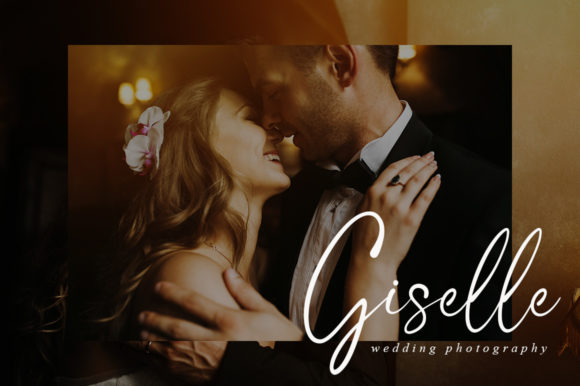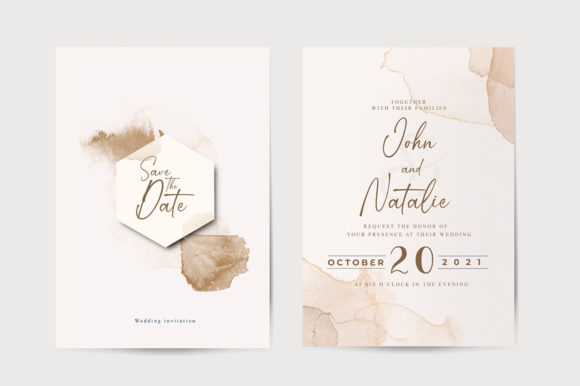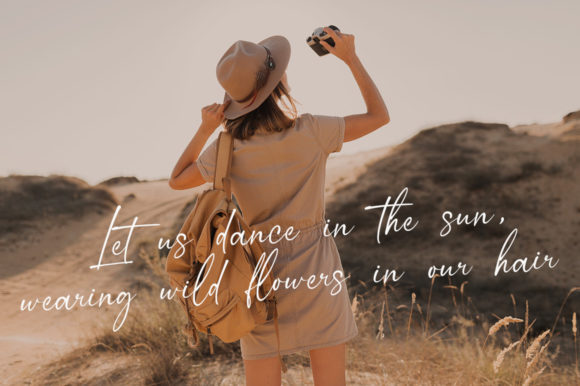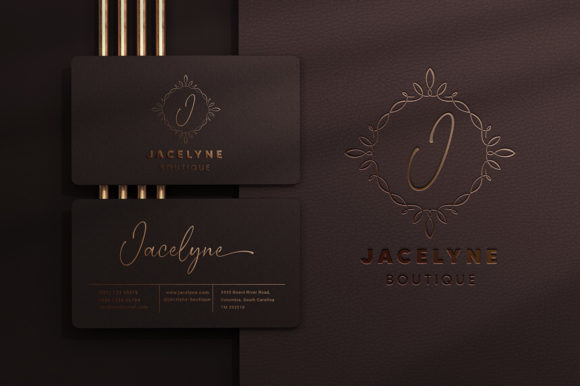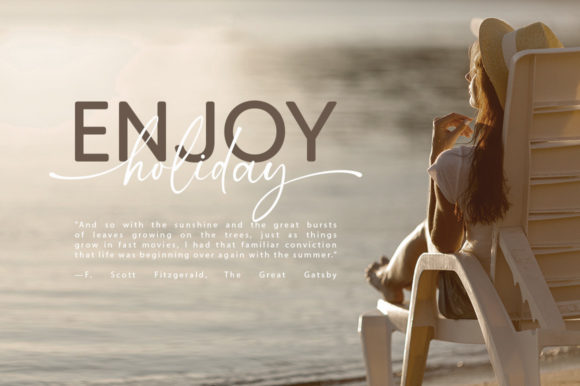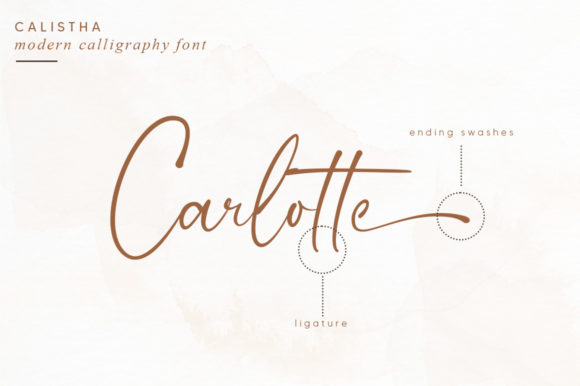
Discover the Elegance of Calistha Font: A Designer's Dream Come True
In the world of typography, fonts play a crucial role in bringing creativity and vision to life. For designers, crafters, and anyone looking to add a touch of elegance to their projects, the Calistha Font is a gem worth exploring. This stunning script font is not only beautiful but also highly versatile, making it an excellent choice for a wide range of design needs.
What Makes Calistha Font Stand Out?
Calistha Font is a thin lettered, lovely, and fashionable script font that has been turning heads in the design community. Its unique charm lies in its delicate and elegant strokes, which can instantly elevate any design project. Whether you're working on a logo, branding materials, invitations, or any other creative endeavor, Calistha Font brings a level of sophistication and style that's hard to match.
The Power of PUA Encoding
One of the standout features of Calistha Font is its PUA (Private Use Area) encoding. This means that the font is designed to allow easy access to all of its glyphs and swashes. For designers, this is a game-changer. PUA encoding ensures that you can effortlessly incorporate the intricate details and flourishes that make Calistha Font so special, giving your designs a unique and personalized touch.
The versatility of Calistha Font is one of its most compelling attributes. Its incredibly stylish and adaptable nature makes it suitable for a myriad of projects. From romantic and whimsical wedding invitations to elegant logos and branding materials, Calistha Font can do it all. Its thin letters and lovely swashes add a touch of class and refinement to any design, making it a favorite among designers who strive for perfection.
Why Designers and Crafters Love Calistha Font
Designers and crafters alike are drawn to Calistha Font for several reasons:
- Elegance: The font's thin and delicate letters exude elegance and sophistication.
- Versatility: It can be used for a variety of projects, from digital designs to print materials.
- Easy to Use: Thanks to PUA encoding, accessing glyphs and swashes is straightforward.
- Unique Style: Calistha Font brings a unique flair to designs, setting them apart from more common fonts.
Tips for Using Calistha Font
To make the most of Calistha Font, consider the following tips:
- Pair it Wisely: Combine Calistha Font with complementary fonts to create visually appealing contrasts.
- Experiment with Swashes: Take advantage of the font's swashes to add dynamic elements to your designs.
- Adjust Letter Spacing: Play with letter spacing to achieve the perfect balance for your project.
- Use it for Headlines and Titles: Calistha Font shines in headlines and titles, where its elegance can be truly appreciated.
Calistha Font is more than just a script font; it's a design powerhouse that offers elegance, versatility, and ease of use. For designers and crafters looking to create spectacular designs that stand out, Calistha Font is an excellent choice. Its PUA encoding, beautiful glyphs, and swashes make it a valuable addition to any designer's toolkit. So, fall in love with Calistha Font and discover how it can transform your design projects into stunning works of art.